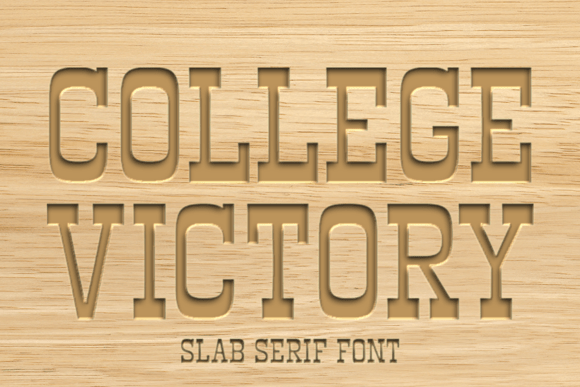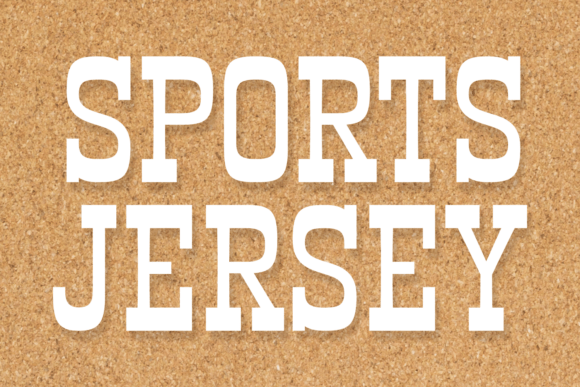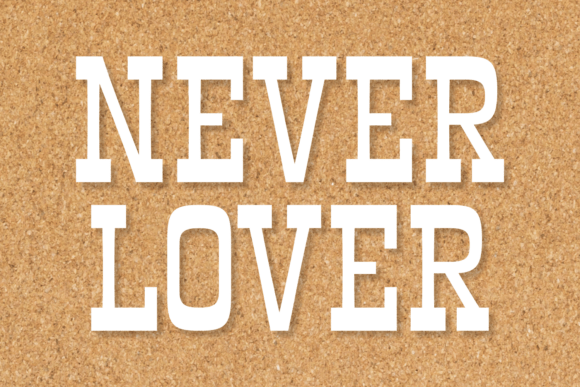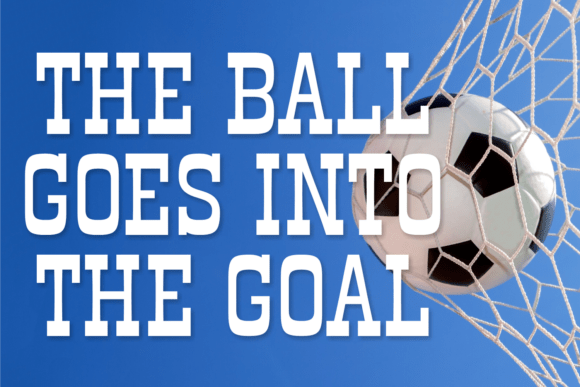
College Victory Font
Unleash creativity with the timeless ‘College Victory’ font. This exceptional typography lends itself to a range of applications, from logos to publishing, making it a versatile piece in any designer’s toolkit. Drawing inspiration from both modern and neo-classical design aesthetics, College Victory has a distinctly blocky and uniform thickness reminiscent of college, university, and military-styled text, including those found in the Army, Navy and Marines. A stunning choice for bold-style projects, College Victory shines in both English and Cyrillic, with a hint of Russian flair expertly weaved into its design. This serif style boasts a consistent, unchanging width, further supplemented by the use of slab elements – akin to the simplicity of mono lettering. The attention to detail goes deeper with inclusion of European accents and diacritics making it not just stylish, but also universally adaptable. College Victory is the essence of regular lettering, rendered extraordinary.